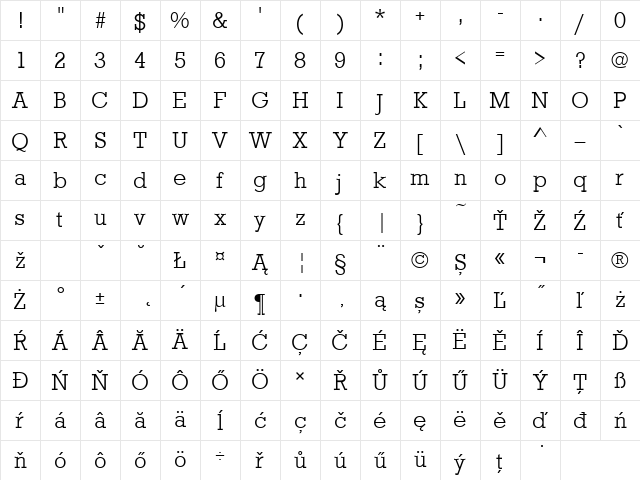
RoctusTEELig Regular
RoctusTEELig Family
Design Context for RoctusTEELig
RoctusTEELig is a composed and adaptable typeface that performs quietly and consistently across a wide range of design contexts.